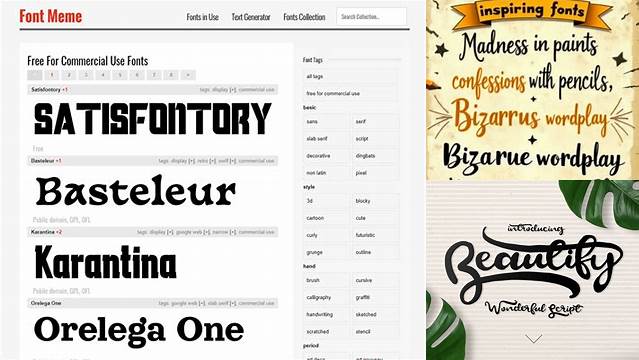
Stylish Fonts: Design Your Own Online For Free
Are you looking to elevate your design game with stylish fonts? You've come to the right place! In this comprehensive guide, we'll explore the world of free online font design, offering you insights, tips, and resources to create typography that truly stands out. Whether you're a seasoned designer or just starting, mastering font design is crucial for making your projects visually appealing and impactful. From understanding font classifications to leveraging online tools, we'll cover everything you need to know to design stylish fonts for free.
Why Stylish Font Design Matters
Stylish font design is the backbone of any visual project, be it a website, a poster, or a social media graphic. The fonts you choose communicate the tone, mood, and personality of your message. Think about it: a playful, handwritten font will evoke a completely different feeling than a sleek, modern sans-serif font. Therefore, understanding how to design or select the right fonts is essential for effective communication.
Firstly, stylish fonts enhance readability and user experience. Imagine reading a website with a cluttered or hard-to-read font. Frustrating, right? Well-designed fonts ensure that your content is easily digestible, keeping your audience engaged. This is especially crucial for online platforms where attention spans are short. A clear, stylish font can make the difference between a visitor who stays and one who clicks away.
Secondly, stylish fonts establish brand identity. Your brand's visual elements, including fonts, contribute significantly to how people perceive you. Consistent use of a specific font across all your materials creates a cohesive brand image. This consistency helps customers recognize and remember your brand. Think of iconic brands like Coca-Cola, whose script font is instantly recognizable worldwide. By carefully choosing and designing your fonts, you can shape your brand’s identity and make a lasting impression.
Thirdly, stylish fonts evoke emotions and set the tone. Different fonts carry different emotional weights. A bold, strong font might convey power and stability, while a delicate, cursive font might evoke elegance and sophistication. Understanding these nuances allows you to choose fonts that align with your message and create the desired emotional impact. For example, if you're designing a wedding invitation, you'll likely opt for a romantic, flowing font. On the other hand, a tech company might prefer a clean, futuristic font.
In summary, stylish font design is not just about aesthetics; it's about communication, branding, and user experience. Investing time in learning how to create or select the right fonts can significantly elevate your design projects and help you achieve your goals. In the following sections, we’ll dive deeper into the world of free online font design, providing you with the tools and knowledge to master this essential skill.
Understanding Font Classifications
Before we jump into the tools and techniques for free online font design, let's take a moment to understand the different font classifications. Knowing these categories will help you choose the right font for your project and design effectively. Fonts are broadly classified into several categories, each with its unique characteristics and applications. Grasping these classifications is the first step toward creating stylish and impactful typography.
Serif fonts are characterized by the small decorative strokes, or “serifs,” at the end of each character. These fonts are often perceived as traditional, elegant, and formal. They are commonly used in print media, such as books, newspapers, and magazines, because the serifs help guide the reader’s eye across the page, enhancing readability in large blocks of text. Think of classic fonts like Times New Roman, Garamond, and Georgia. These fonts have a timeless quality and are often used to convey authority and trustworthiness.
The history of serif fonts dates back to the Roman alphabet, where serifs were initially created by the brushstrokes of scribes. Over time, these serifs became an integral part of the letterforms and evolved into various styles, including Old Style, Transitional, and Modern. Each style has its own nuances, but they all share the fundamental characteristic of serifs.
When should you use serif fonts? They are ideal for projects that require a sense of tradition, formality, or sophistication. Think of legal documents, academic papers, and high-end branding materials. However, be mindful of using serif fonts in digital designs, as they can sometimes appear cluttered on screens, especially at smaller sizes. Choosing a clear, well-designed serif font is crucial for maintaining readability online.
Sans-serif fonts, on the other hand, lack the decorative strokes found in serif fonts. They have a clean, modern, and minimalist aesthetic. Sans-serif fonts are often used in digital designs, such as websites, apps, and user interfaces, because they tend to be more readable on screens. Popular sans-serif fonts include Arial, Helvetica, and Open Sans. These fonts are versatile and can convey a sense of clarity, efficiency, and modernity.
Ensure that the vertical strokes of your letters are consistent in weight. Varying the weight of the vertical strokes can create visual interest, but it's important to do so intentionally and consistently.
Pay attention to the curves of your letters. Smooth, flowing curves create a sense of elegance and sophistication, while sharp, angular curves can convey a sense of modernity and energy. Choose curves that align with the overall style of your font.
Consider the symmetry of your letters. Some letters, such as